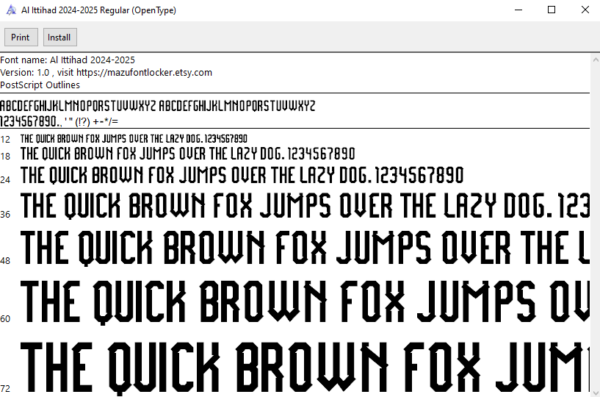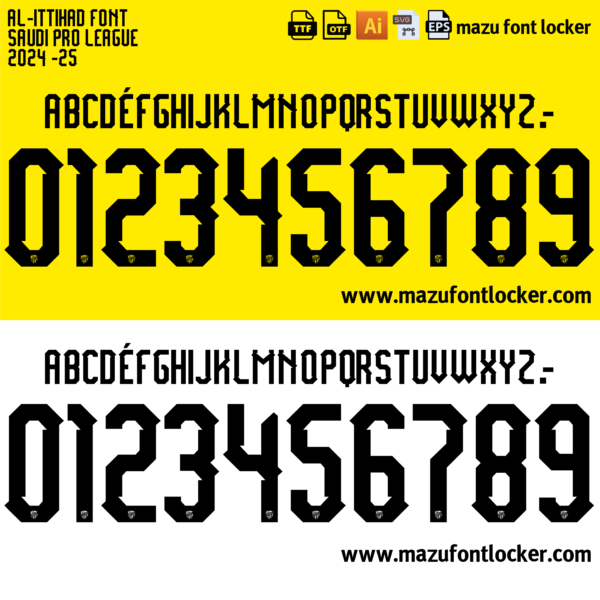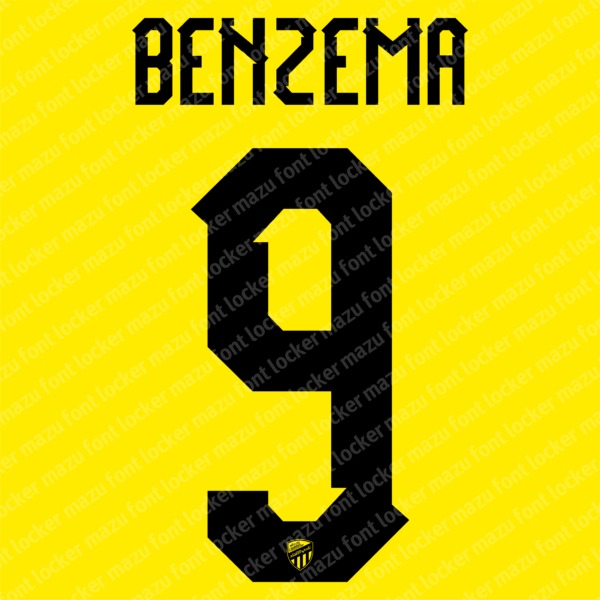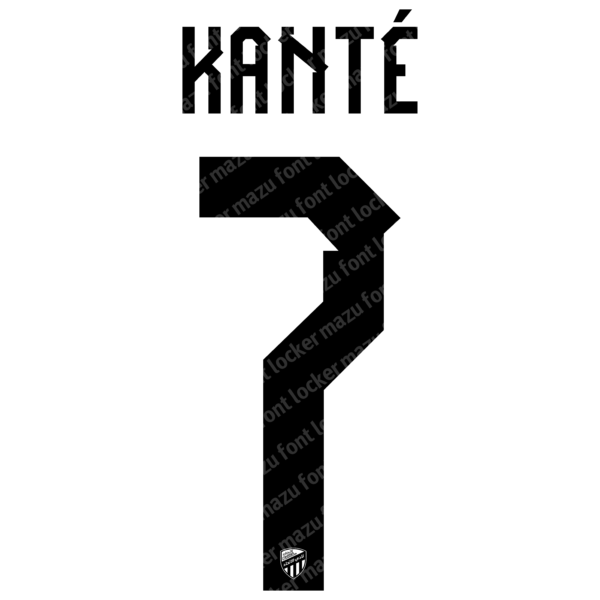
Al Ittihad 2024-2025 Font Vector – Fierce Tiger Masterpiece
Al Ittihad 2024-2025 Font – Authentic Tigers Typeface
The Al Ittihad 2024-2025 Font is a premium typeface that accurately recreates the official match lettering worn by Al Ittihad Club during the 2024-2025 Saudi Pro League season. This high-quality font kit captures the bold, modern, and aggressive typography that represents the ambitious campaign of the Saudi giants.
Designed for professional designers and passionate Al Ittihad fans, the Al Ittihad 2024-2025 Font delivers perfect authenticity for creating realistic jersey mockups, fan merchandise, matchday posters, social media graphics, and much more. It blends beautifully with the club’s iconic yellow-and-black colors.
Why Choose Al Ittihad 2024-2025 Font
This font stands out because of its sharp details and strong modern identity. Every letter and number is crafted to match the exact style used on the players’ shirts during the 2024-2025 season. Whether you are making realistic kit templates or dynamic football content, the Al Ittihad 2024-2025 Font gives your designs that authentic Tigers look.
The letterforms in the Al Ittihad 2024-2025 Font are tall, bold, and highly readable. The strokes have a strong and controlled weight that looks powerful on the back of jerseys while maintaining excellent clarity and modern elegance.
The numerals use bold curves and firm edges, giving them a confident and premium appearance. This design ensures great legibility whether used in large print formats, digital mockups, or video content.
• Full uppercase A–Z and numbers 0–9 in authentic Al Ittihad 2024-2025 style
• Special Al Ittihad club crest glyph for accurate shirt number detailing